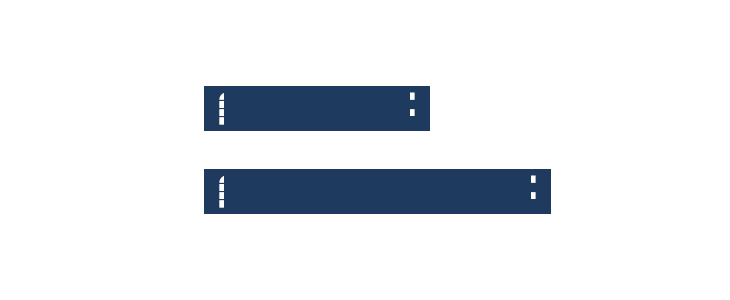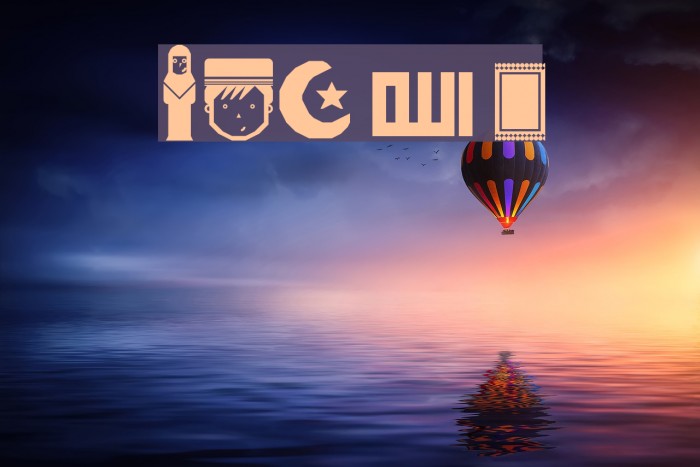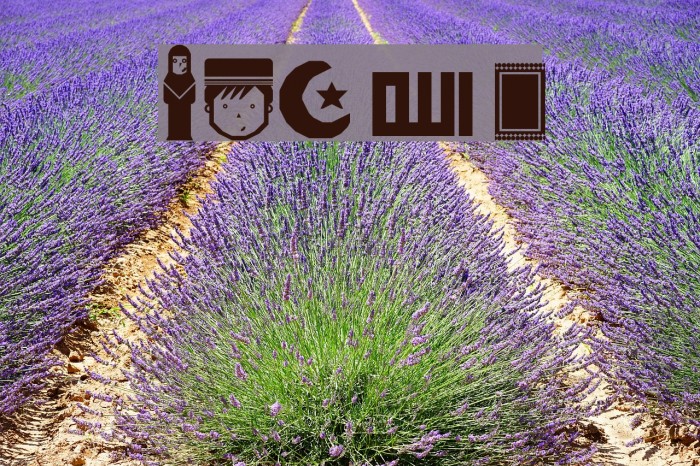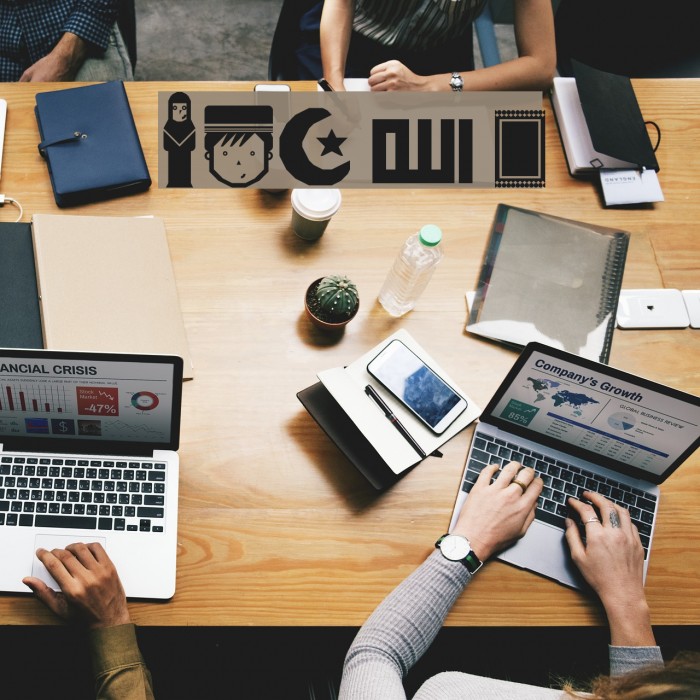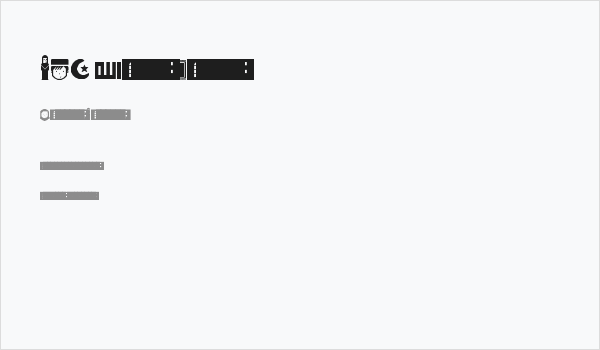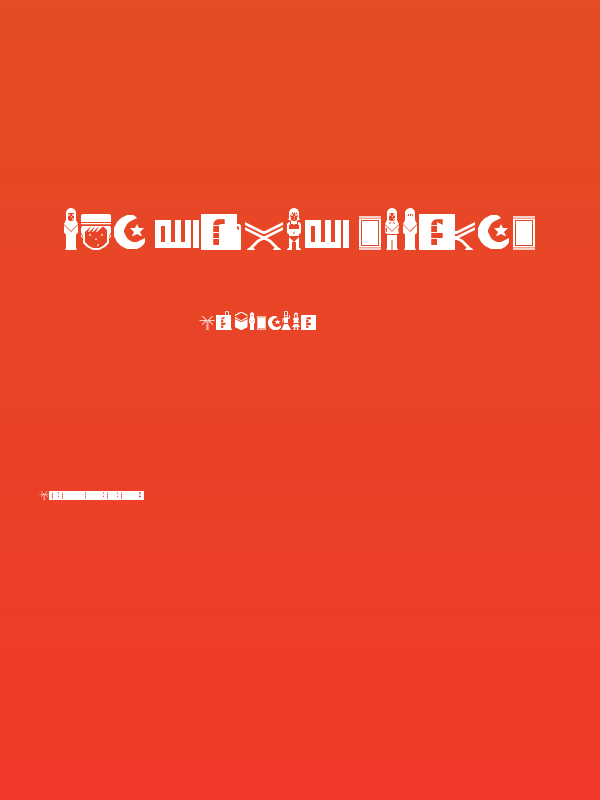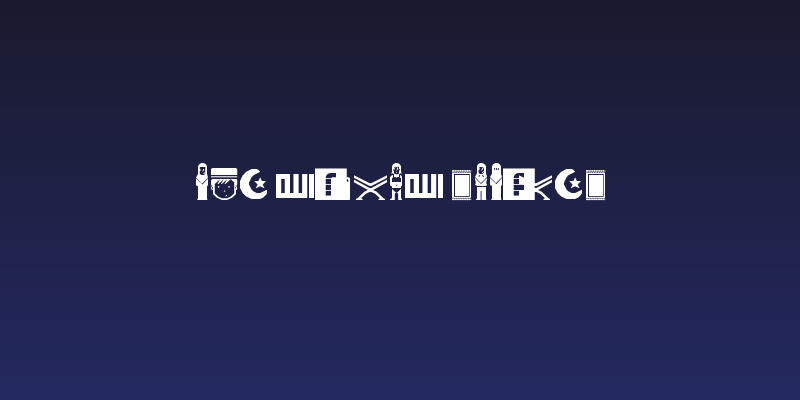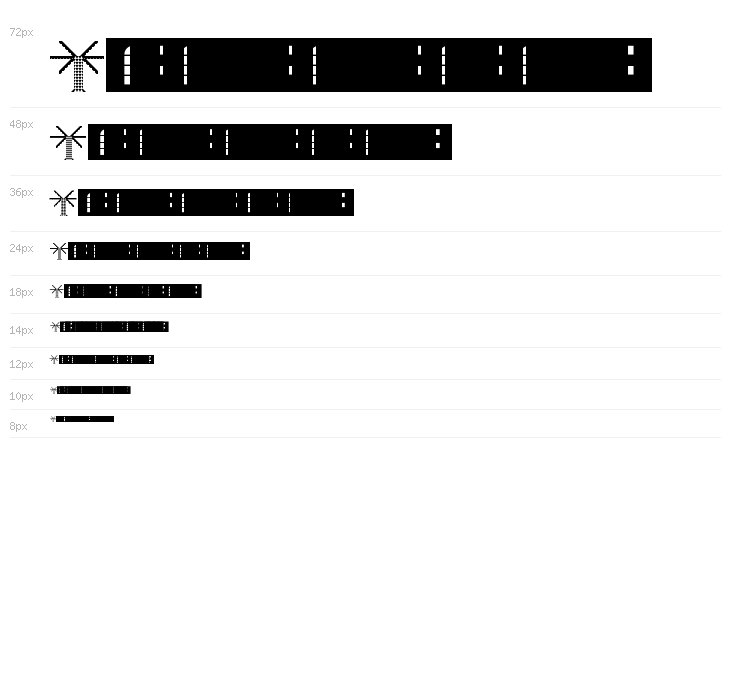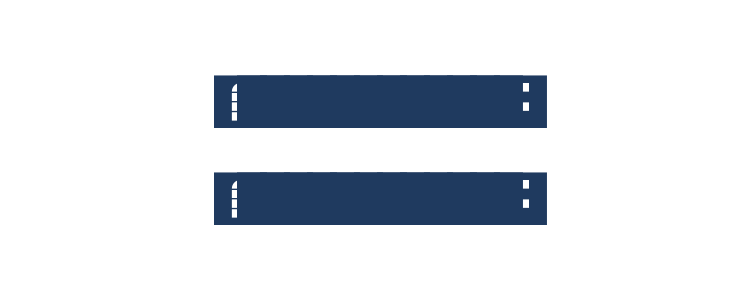
DBA Muslim Regular Font
DBA Muslim Regular Description
This font features a collection of symbols and icons that are culturally significant, representing various elements such as people, architecture, and religious symbols. The design is bold and graphic, with a strong emphasis on clear, recognizable shapes. Each character is distinct, making it suitable for decorative purposes where cultural representation is important. The icons are designed with a uniform thickness, ensuring consistency across the set.
| Use Case | Logos, Educational materials, Cultural projects |
| Proposed Projects | Ideal for cultural projects, educational materials, or decorative designs that require symbolic representation. |